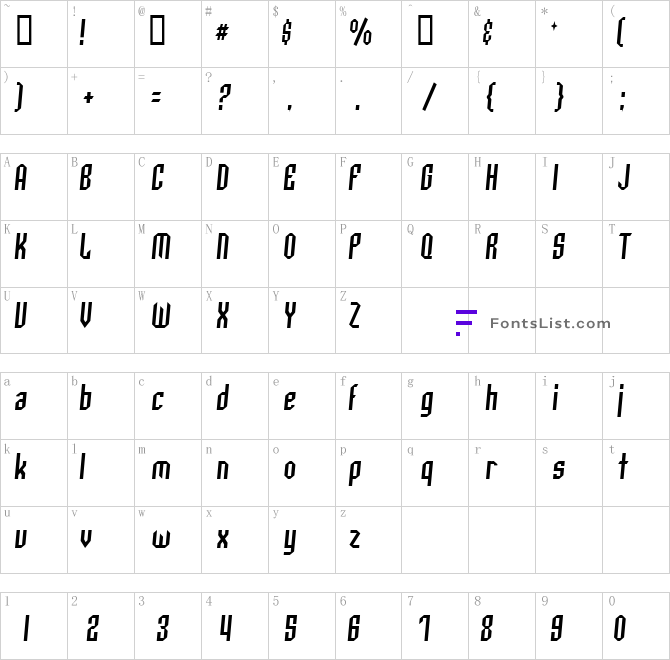
- Font Name:Archery Black Condensed
Archery-Black-Condensed-Italic-copy-2-.ttf is a very beautiful artistic font, Archery-Black-Condensed-Italic-copy-2-.ttf is widely used in the design and printing of various books and pictures,Archery-Black-Condensed-Italic-copy-2-.ttf has a strong visual impact,Archery-Black-Condensed-Italic-copy-2-.ttf is a commonly used font in newspapers, magazines and books, and is used in posters, e-commerce Poster design, store design, logo design, font design and other fields.Archery-Black-Condensed-Italic-copy-2-.